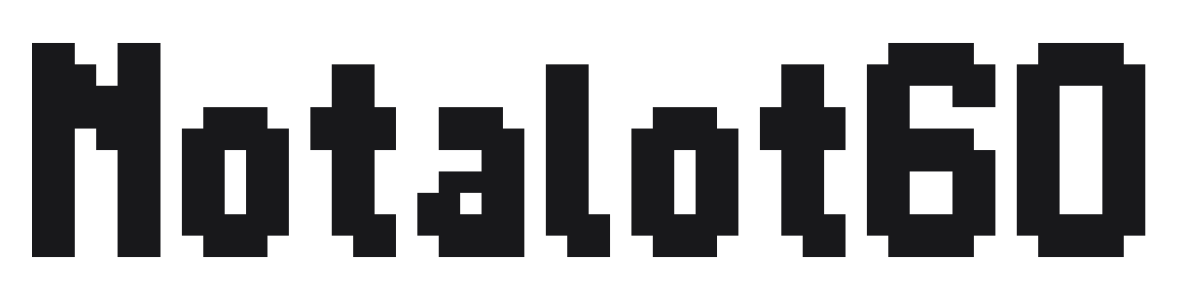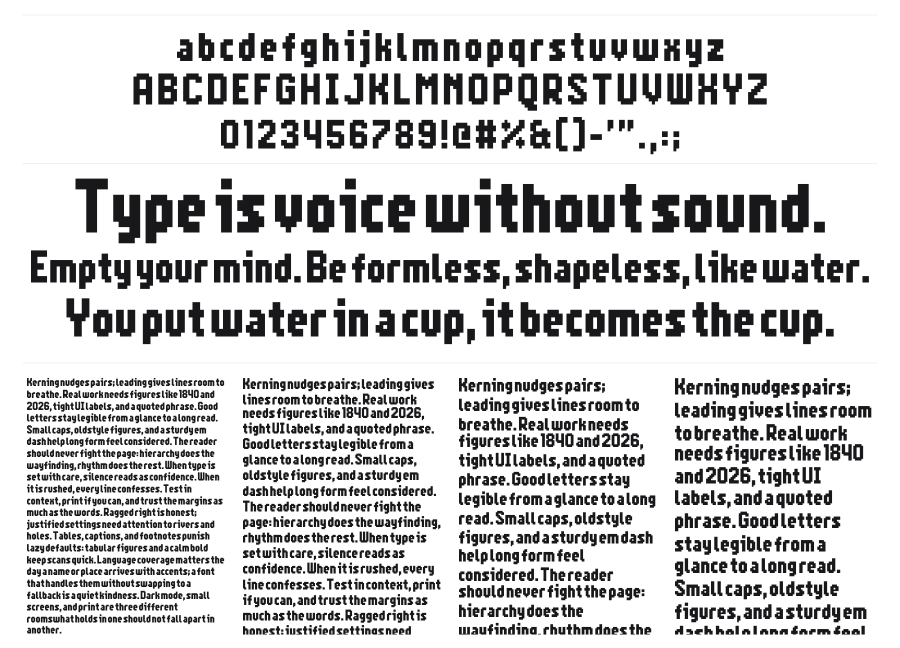
Notalot60
Notalot60 is a chunky bitmap pixel font that channels classic 8-bit arcade and early video game typography. Built on a coarse pixel grid with heavy, blocky strokes and hard square terminals, it carries an unmistakable retro-digital character. The weight is bold enough to hold its own at headline and display sizes, making it a natural choice for gaming projects, retro branding, and anything that needs a lo-fi digital edge.